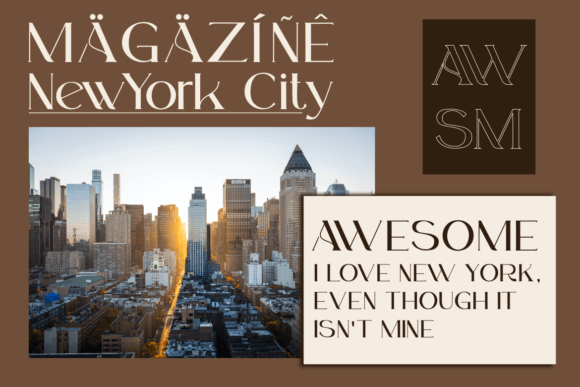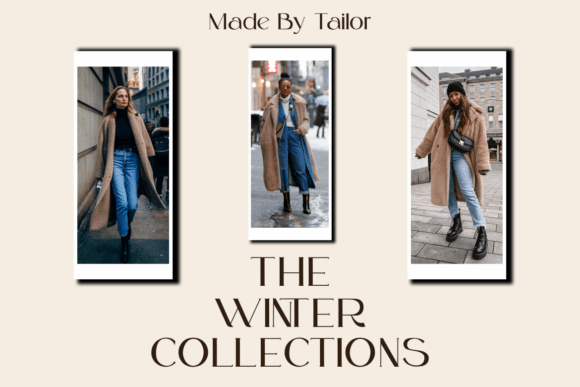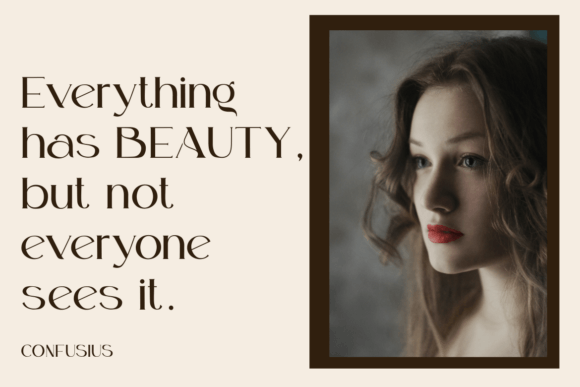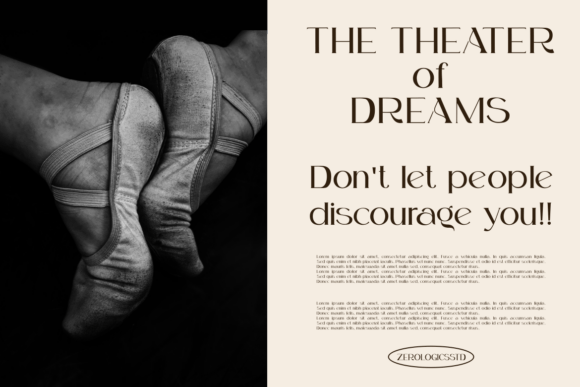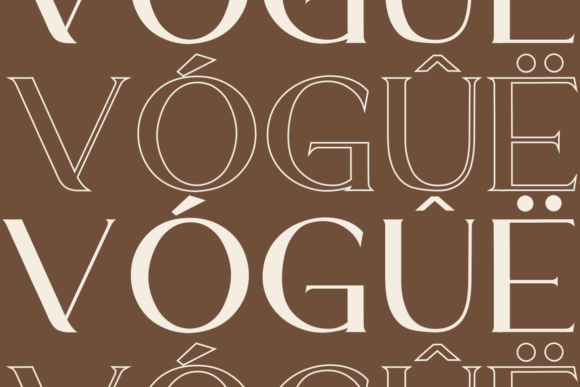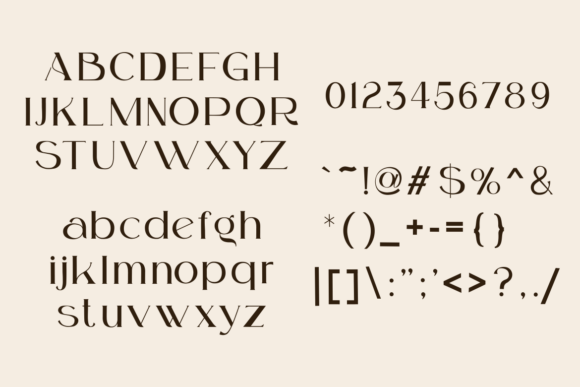
Introduction to Royal Ascend Font Font
Fonts play a crucial role in design, and the Royal Ascend Font font is a typeface that brings both character and versatility to any project. Whether you’re working on a branding project, a website, or a print design, the Royal Ascend Font font offers a unique style that can elevate your work.
RoyalAscend is a modern classy font that we designed with an original touch for your needs.
This cool font is complete with Uppercase, Lowercase, Numeric & symbols This very strong and sharp font is perfect for titles, typography, posters, magazines, brochures, packaging, Websites, and much more for your design needs, making your designs more cool.
Key Features of Royal Ascend Font Font
Why Choose Royal Ascend Font Font?
The Royal Ascend Font font is more than just a typeface – it’s a design tool that helps you communicate your message with style and clarity. Its unique character set and versatile design make it suitable for a wide range of applications, from elegant invitations to bold headlines.
With its carefully crafted letterforms and balanced proportions, the Royal Ascend Font font ensures readability and visual appeal across all mediums.
What makes Royal Ascend Font font special?
The Royal Ascend Font font stands out with its unique design, exceptional readability, and versatility across various design applications.